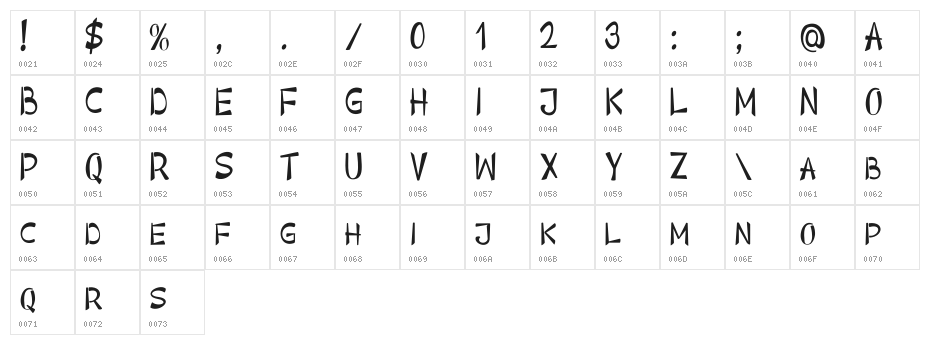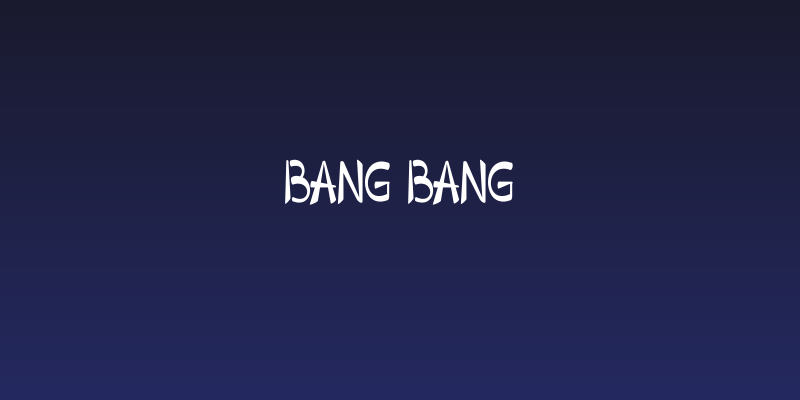
Bang Bang Font
Bang Bang Description
This font features a bold and dynamic style with a playful, energetic flair. The characters are designed with a unique, slightly irregular form that adds a sense of movement and excitement. The uppercase letters are particularly striking, with sharp angles and a sense of urgency. The lowercase letters maintain this lively aesthetic, ensuring consistency throughout. Numbers and special characters are equally bold, making them stand out effectively. This font is ideal for projects that require a strong visual impact and a sense of fun.